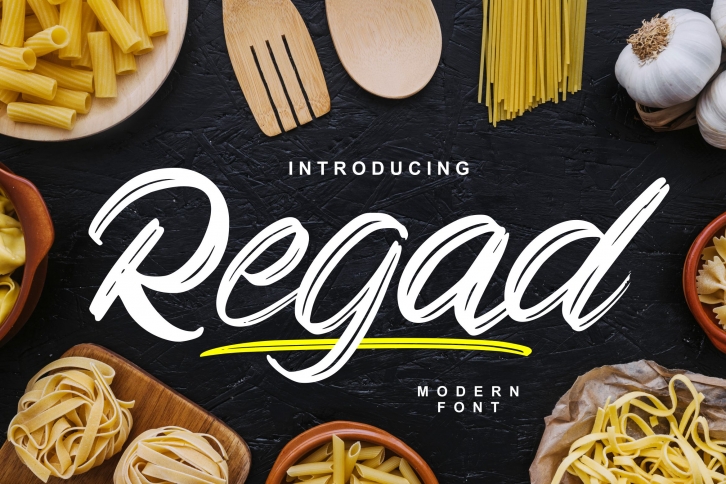
regad is a trendy and unique font with an authentic style. It was designed by Vunira and it's a great choice for creative people who need such a font. It was released on September 11, 2019 and the file size is 18.91 MB. regad will add an organic vibe to any design idea!